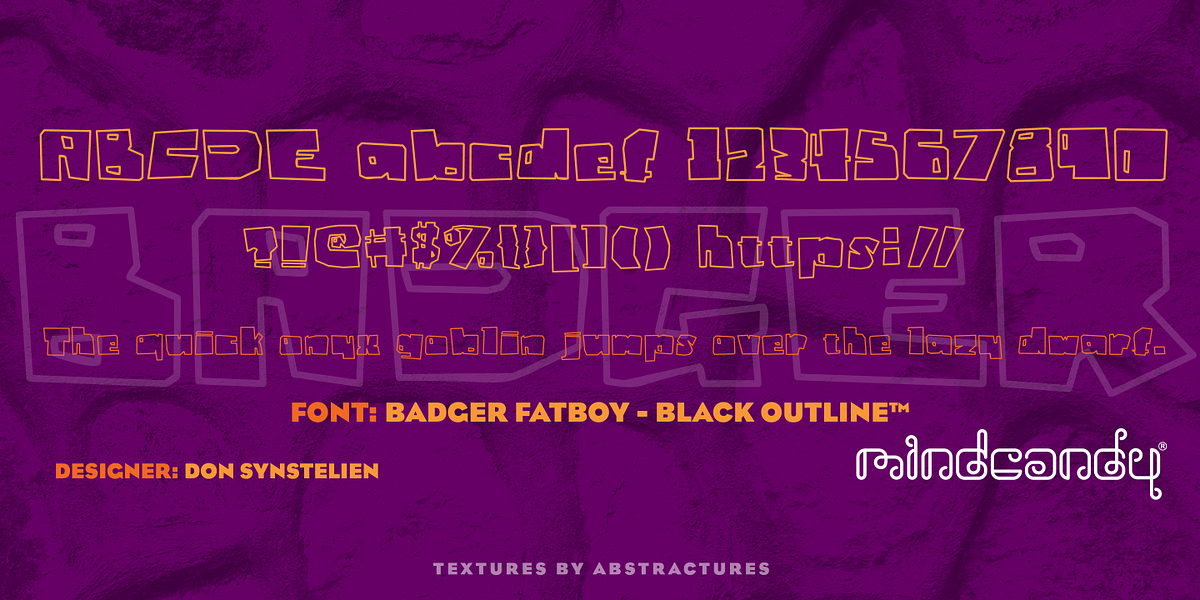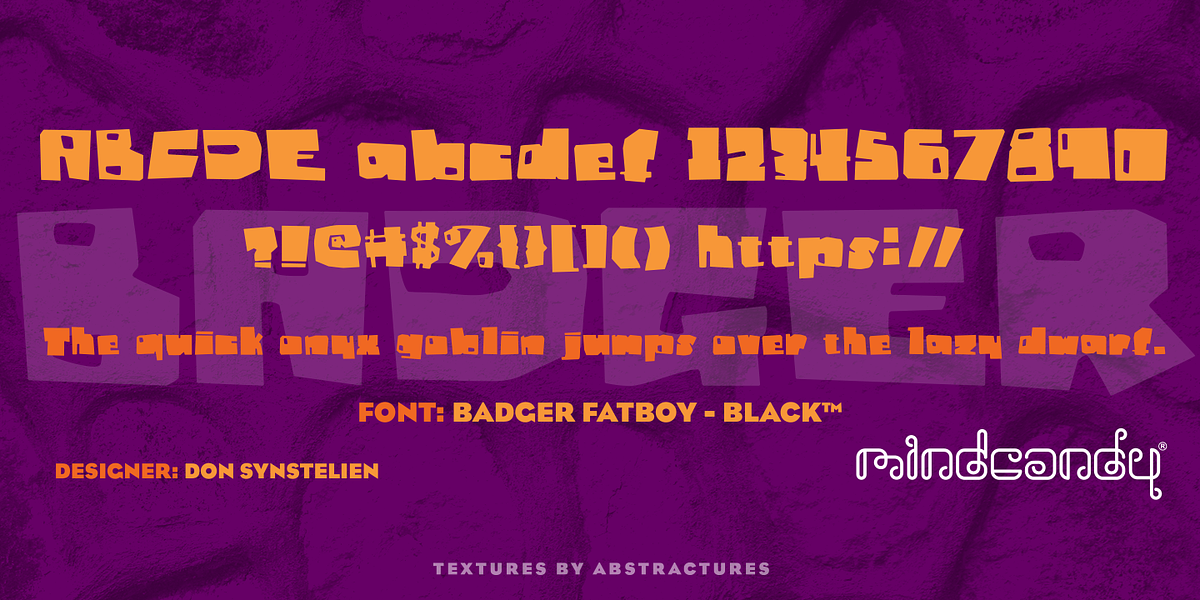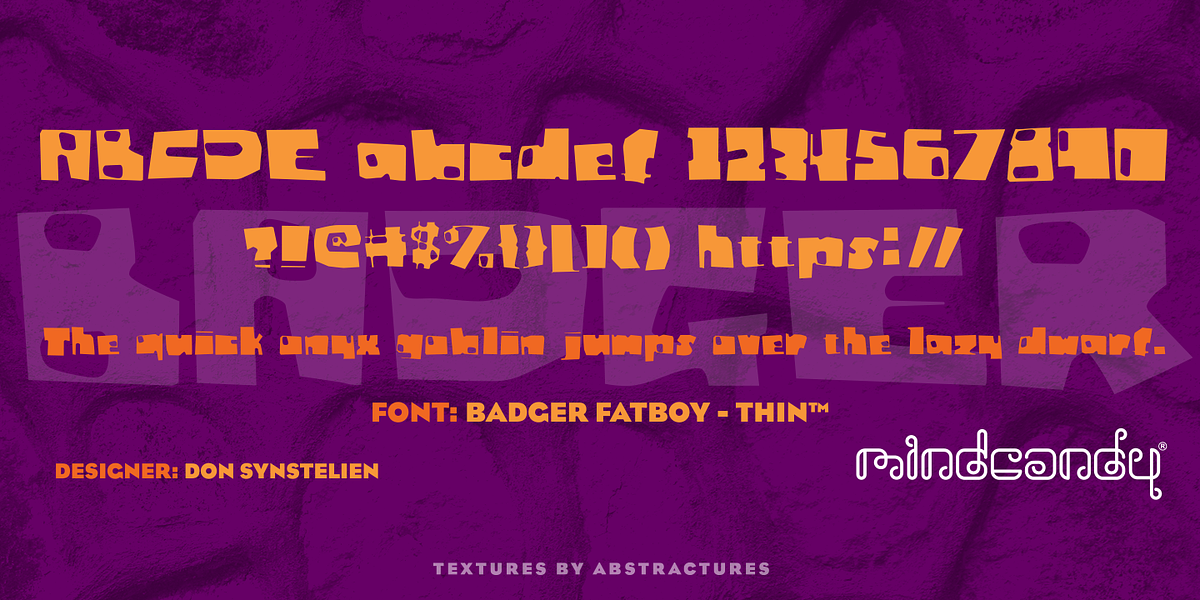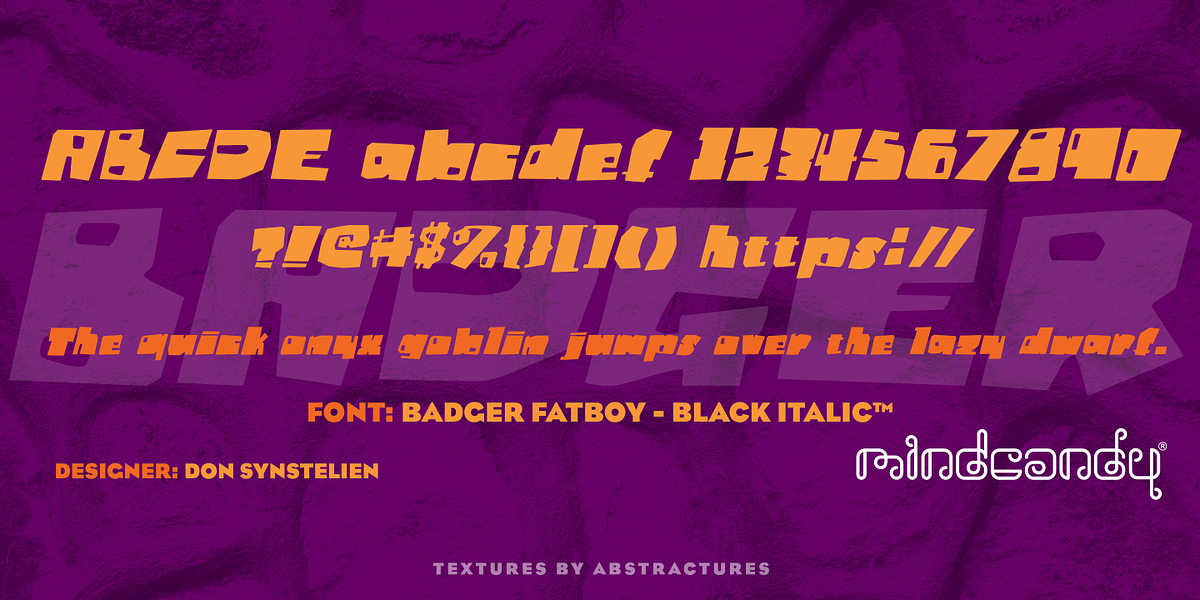
Badger Fatboy™
This novelty display font has a distinctive square shape and an outline that evokes the look of hand-cut paper. Its playful style makes it suitable for headlines, branding, and craft projects.